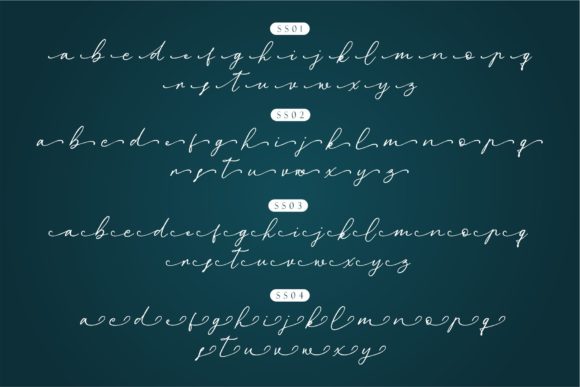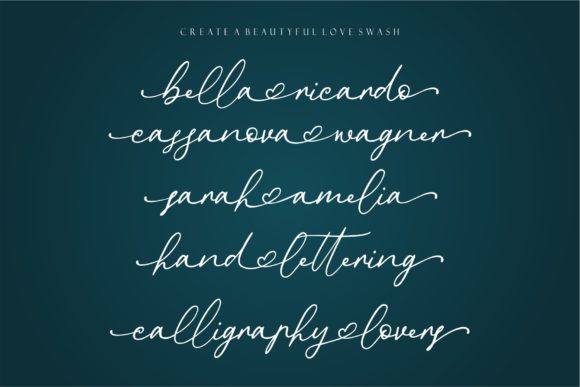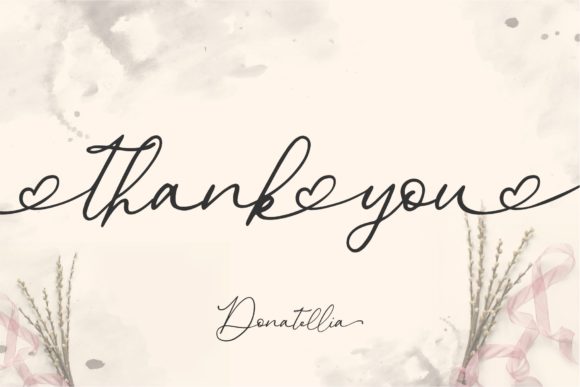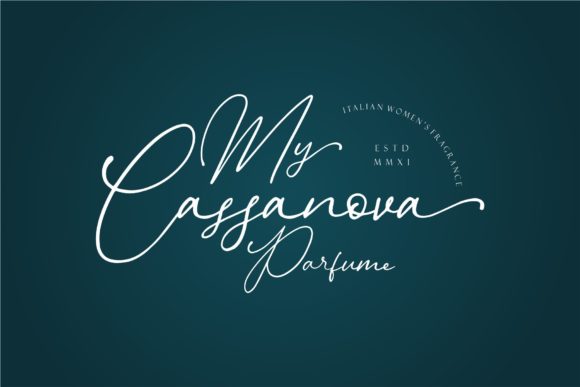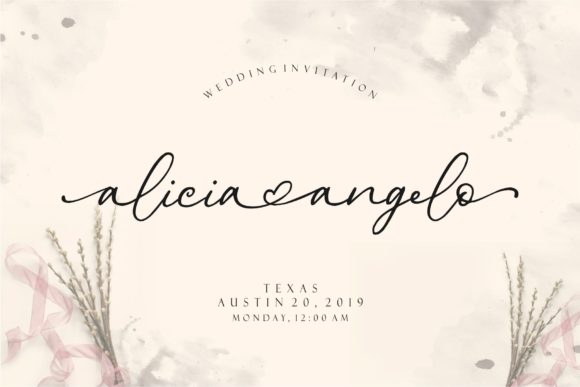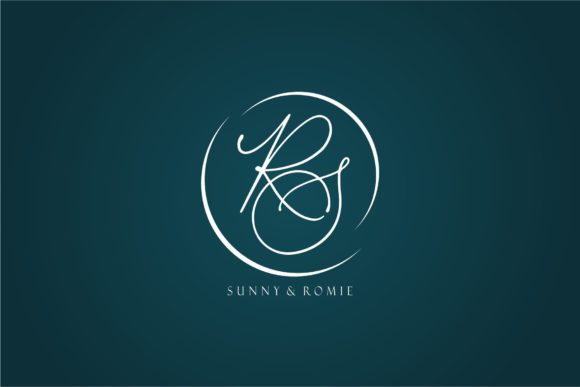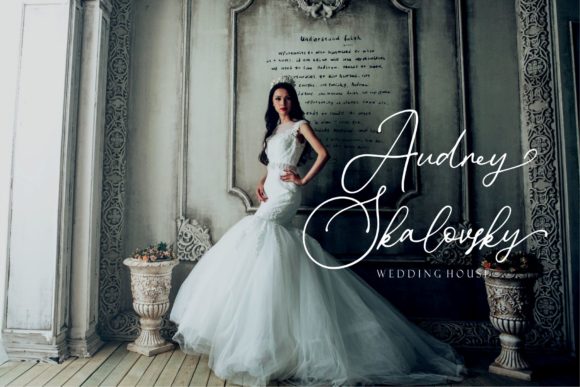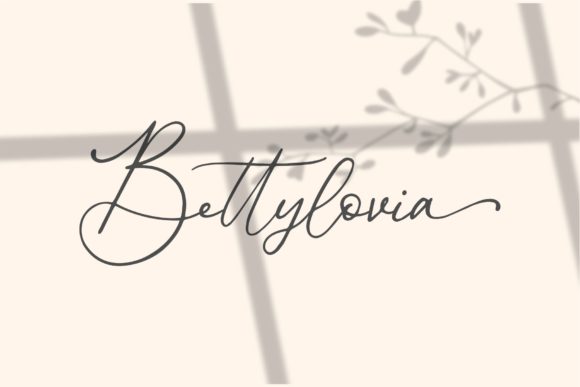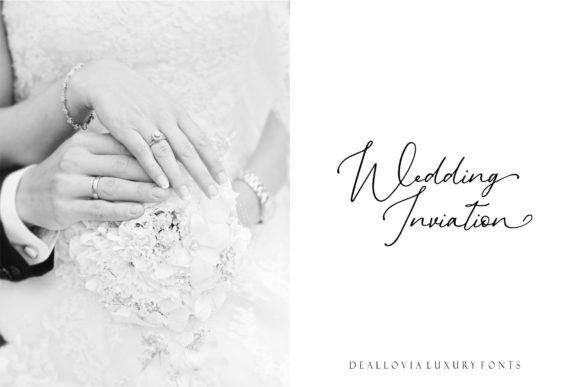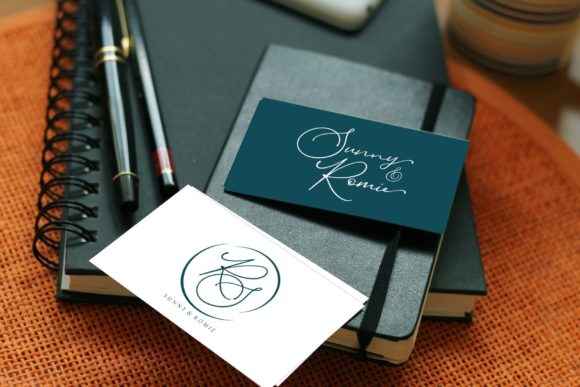
Donatellia Font
About Donatellia Font
Donatellia is a rich and bold handwritten font with a sophisticated feel. Fall in love with its authentic charm, and elevate any design project with this striking font!